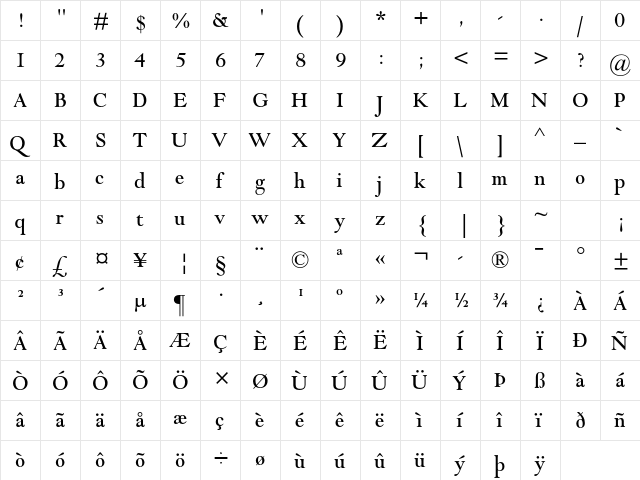
Goudy Modern MT Std Regular
| Designer | Frederic W. Goudy |
Design Context for Goudy Modern MT Std Typeface
Goudy Modern MT Std takes a measured approach to typography — its balanced proportions and neutral character make it a reliable workhorse for both digital and print work.